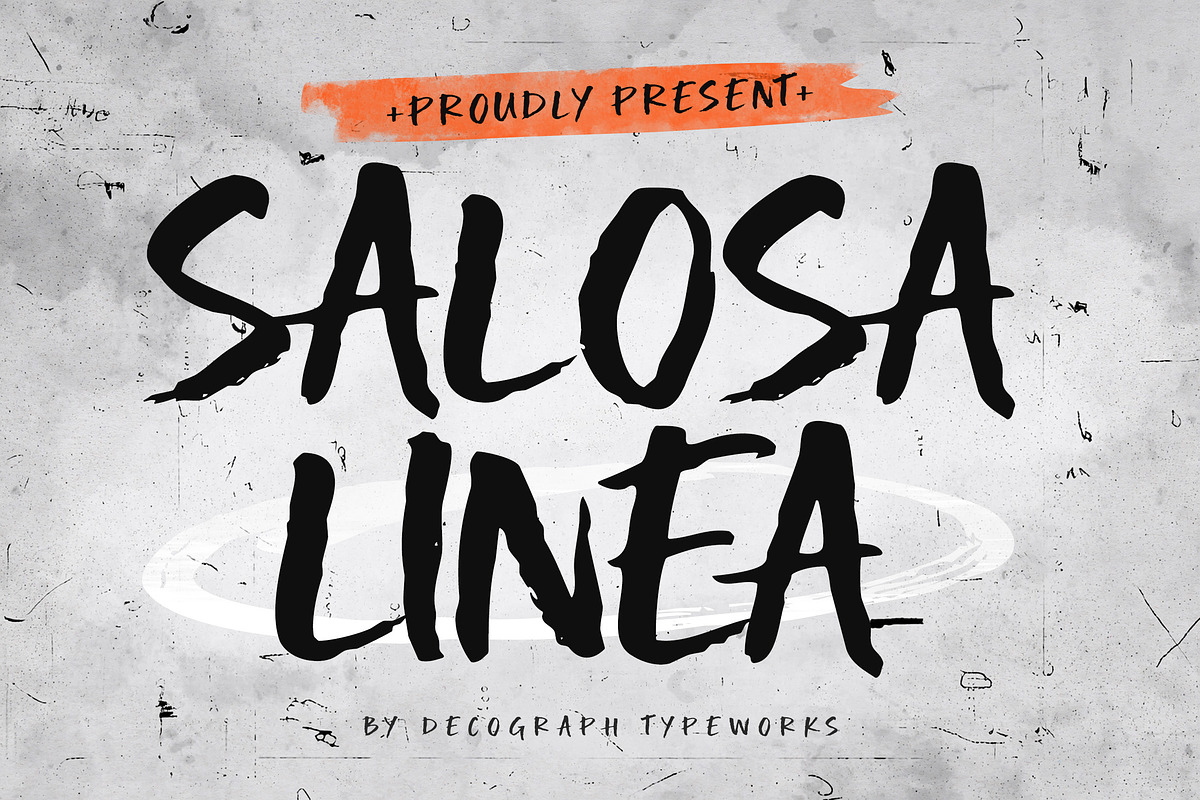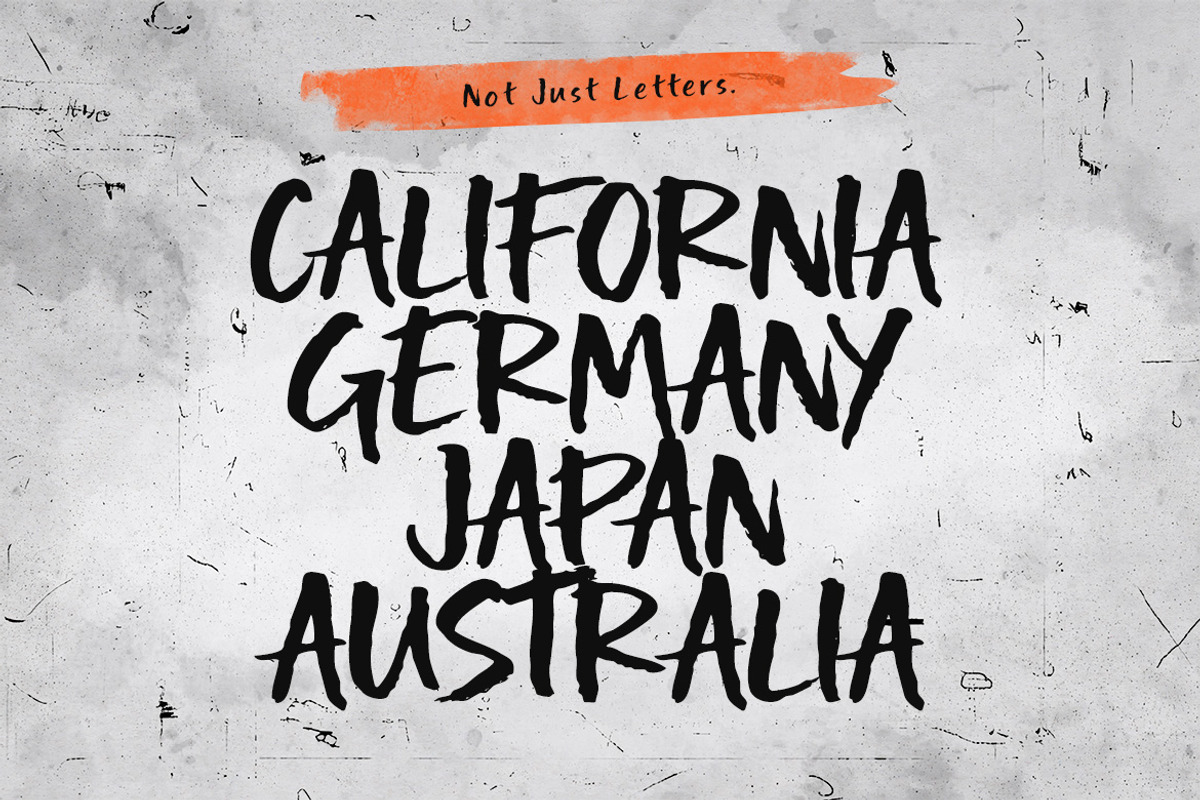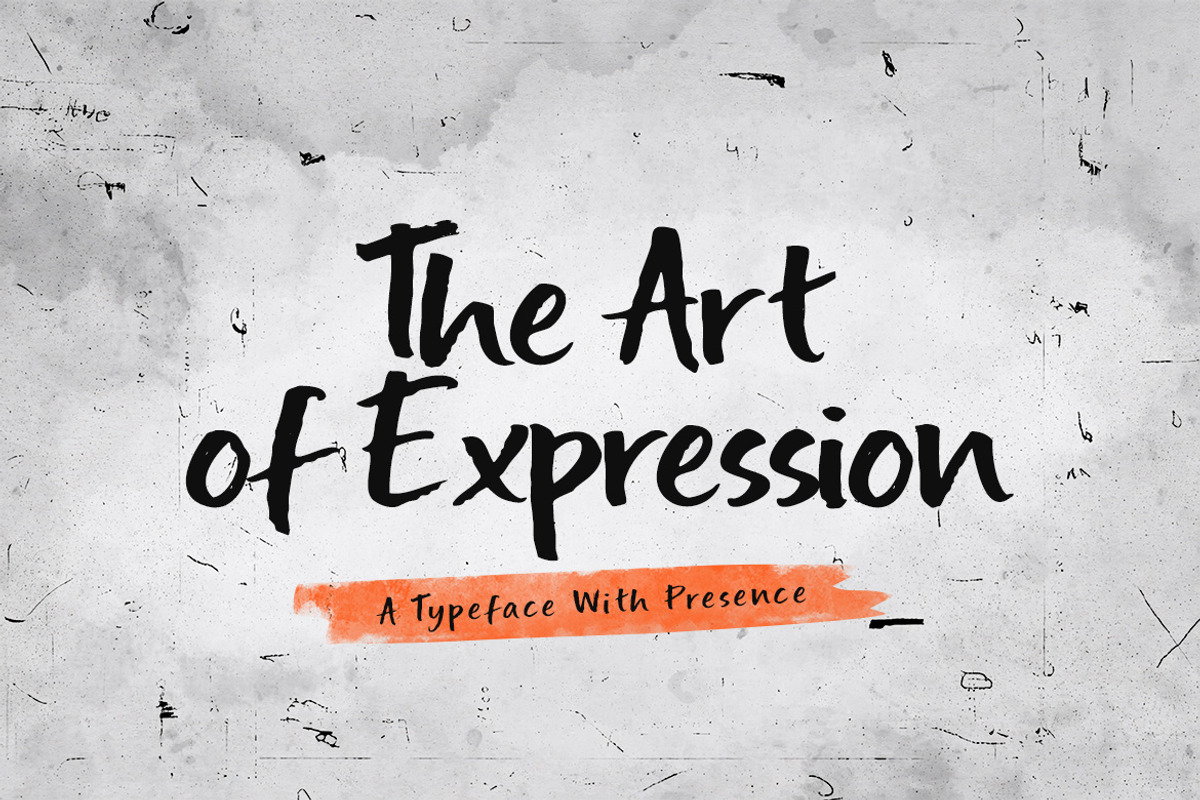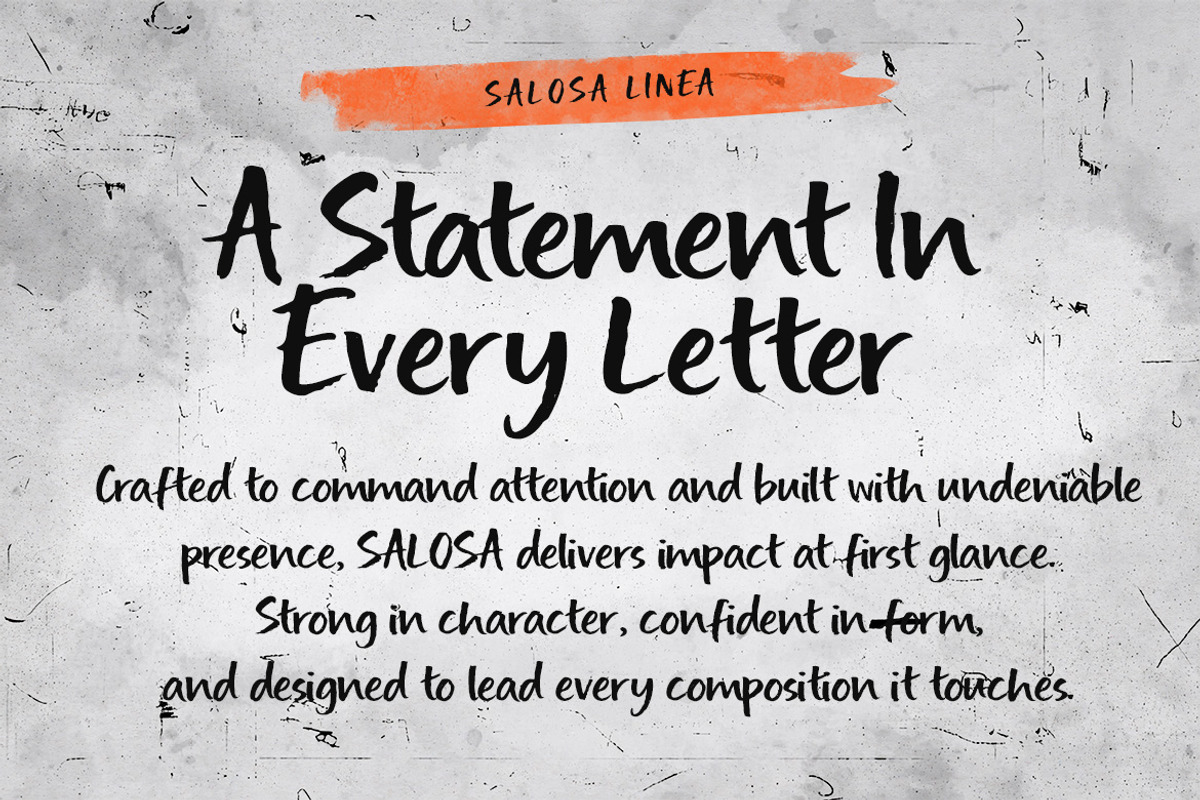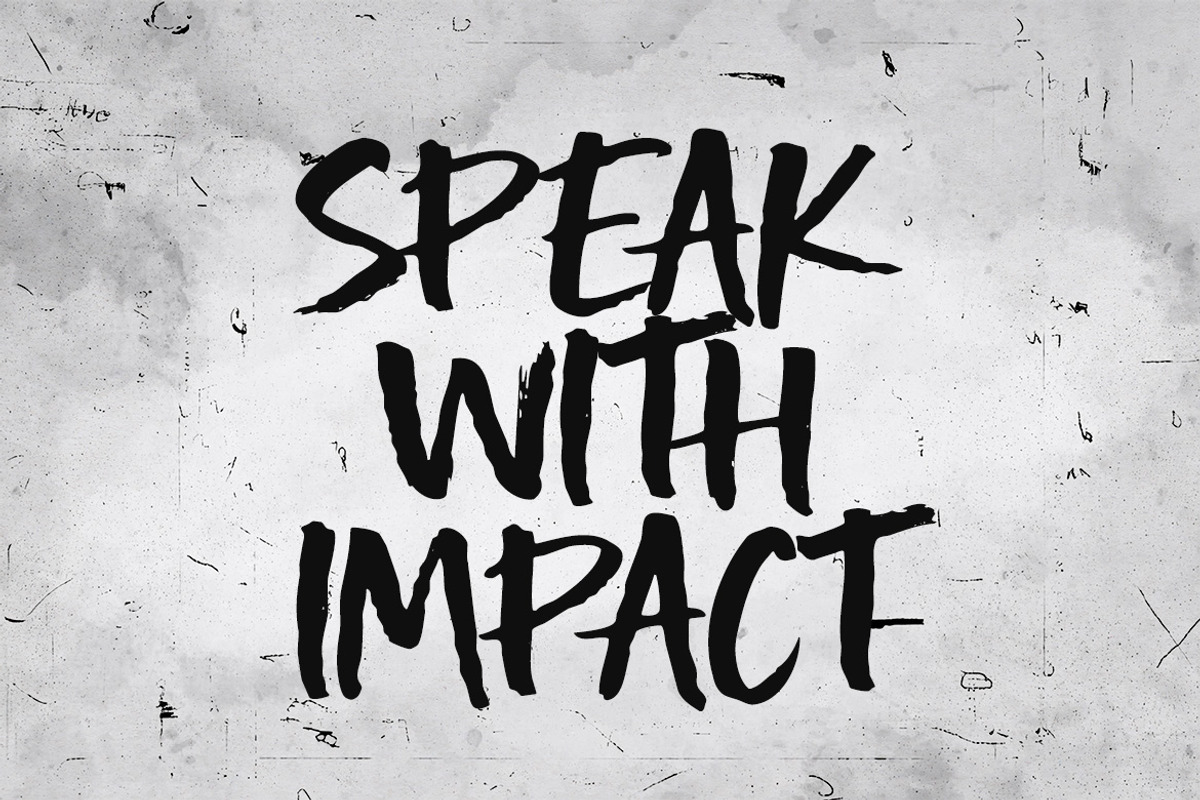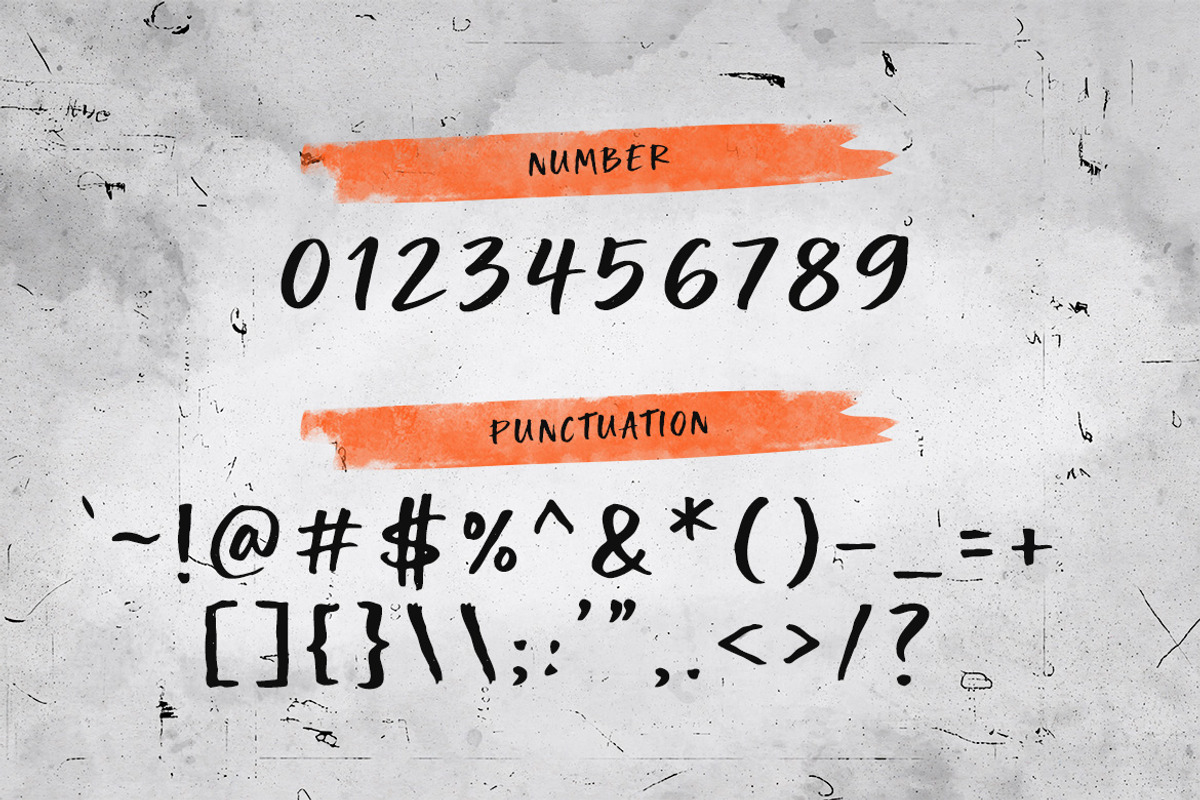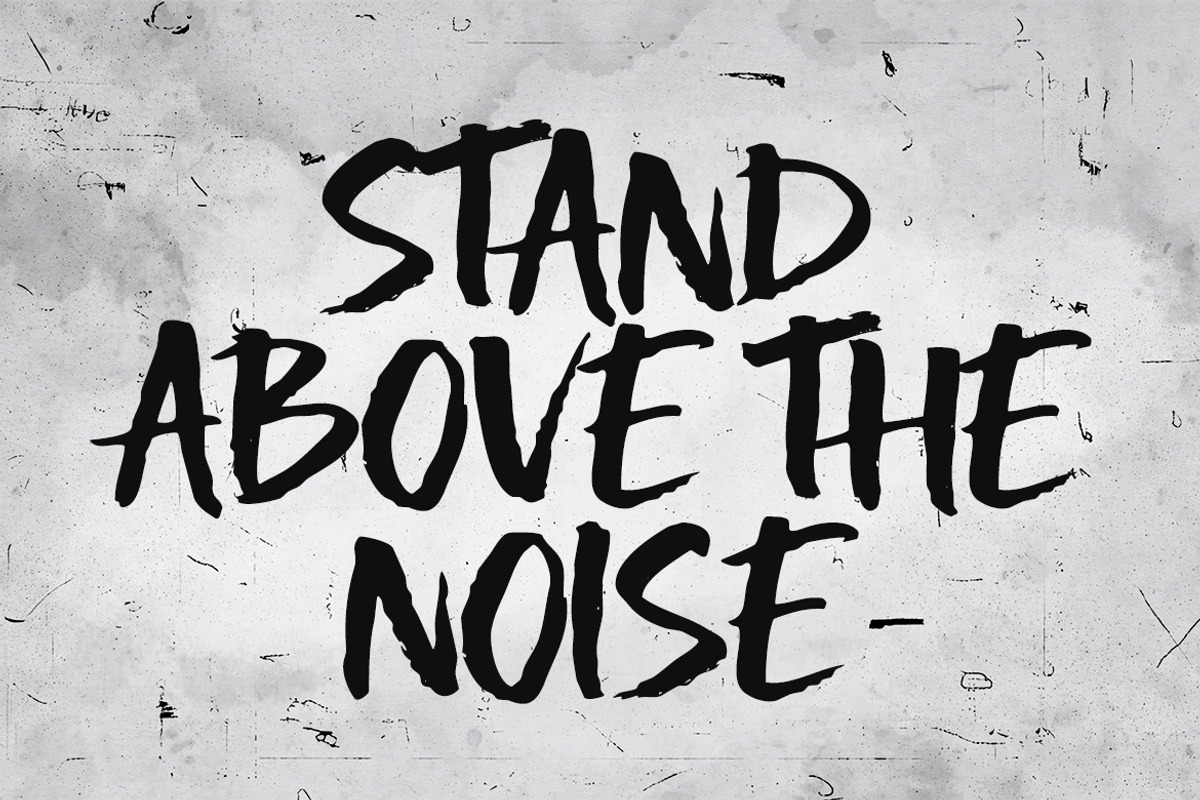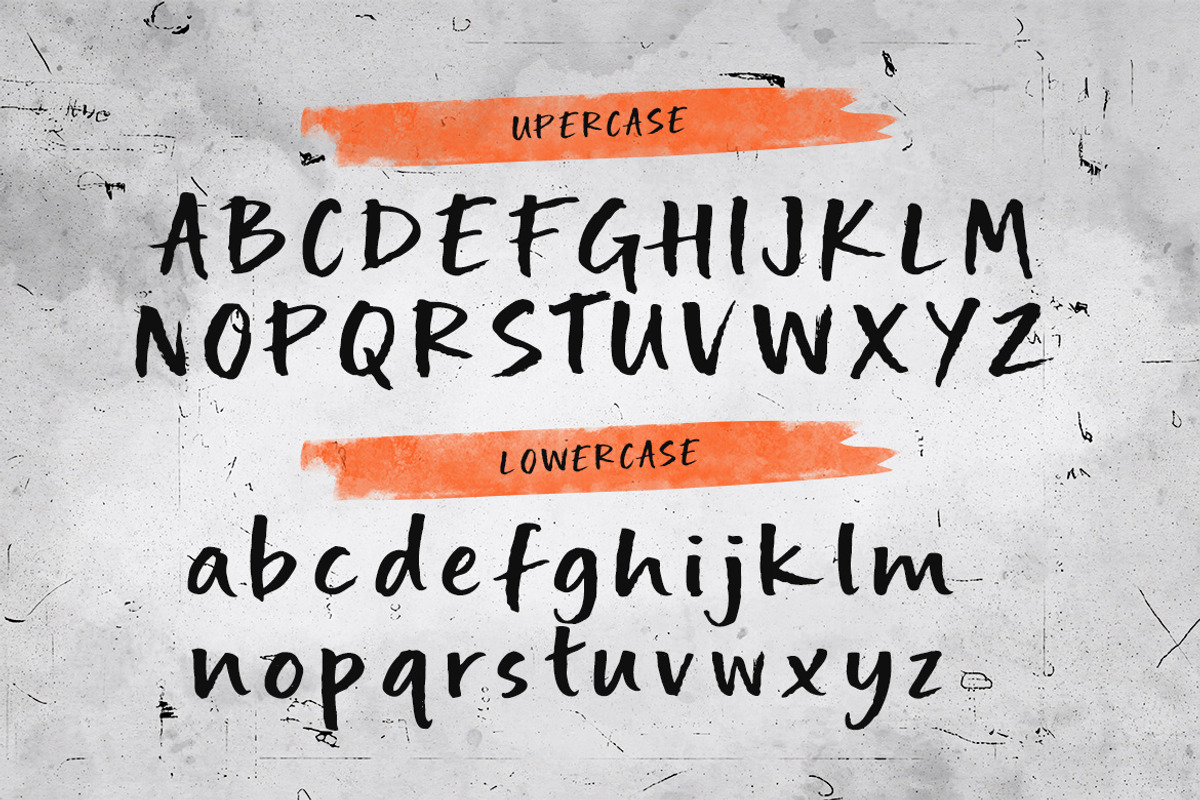
Salosa Linea – Bold Brush Display
Salosa Linea is a raw and expressive brush display font that captures the energy of hand-painted strokes with bold, textured letterforms and dynamic movement. Featuring rough edges, natural ink flow, and an authentic handcrafted feel, this typeface delivers a strong visual impact that feels both edgy and artistic. Perfect for posters, branding, apparel, music covers, street-style designs, and bold headlines, Salosa Linea brings a rebellious yet creative personality that makes every composition stand out with confidence and attitude.
:FEATURES:
- Smooth Kerning